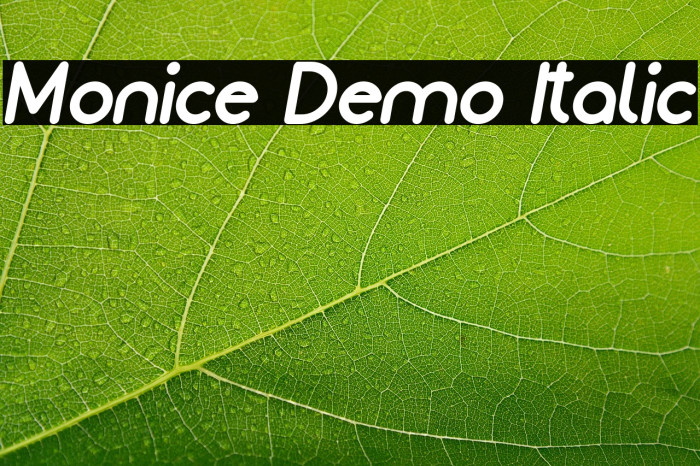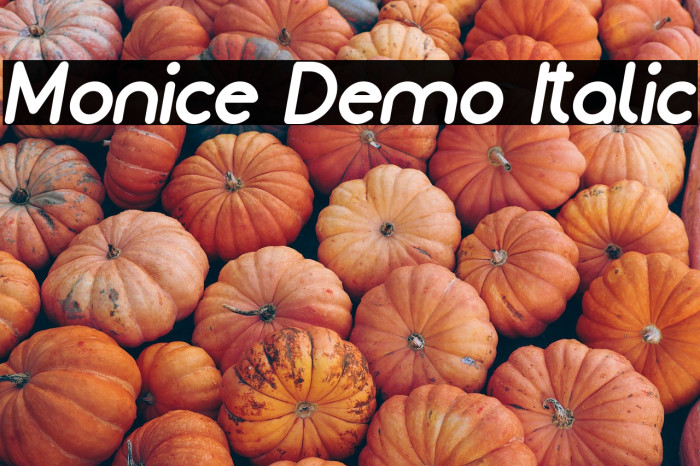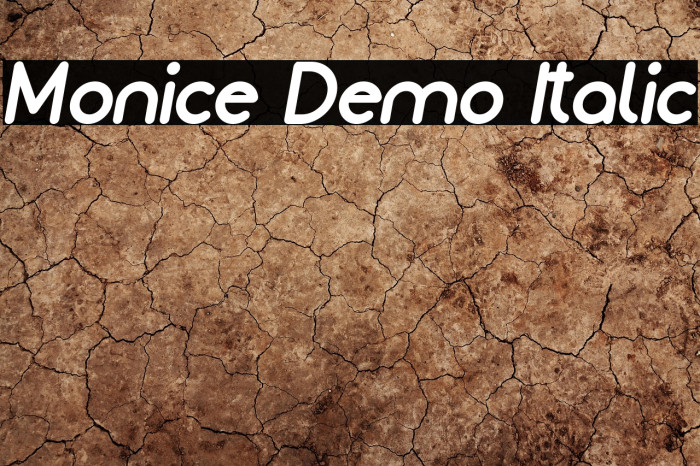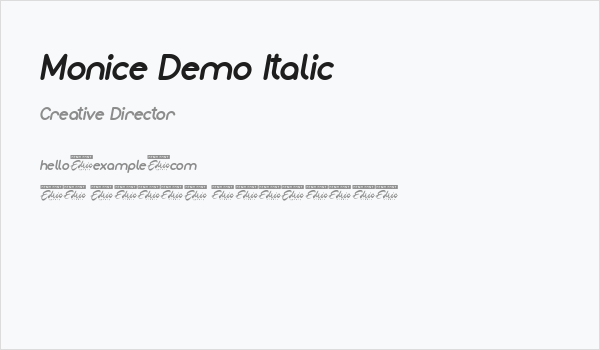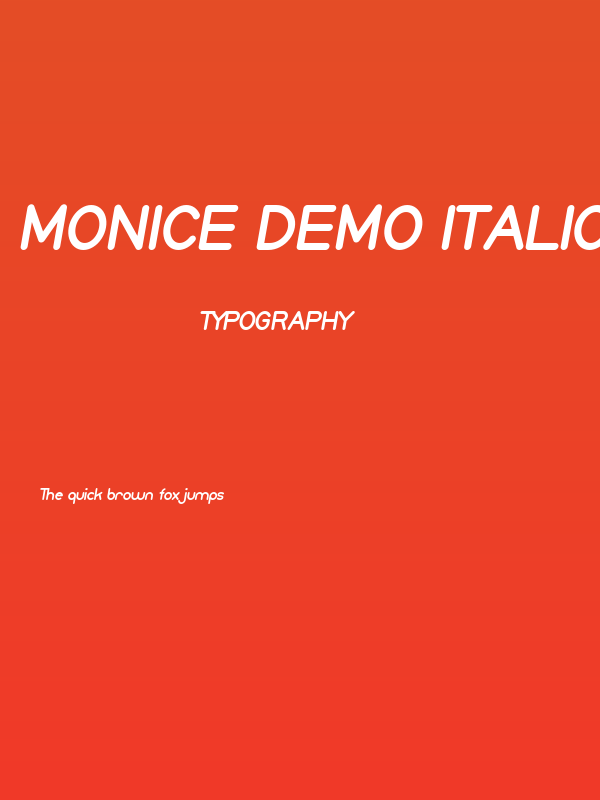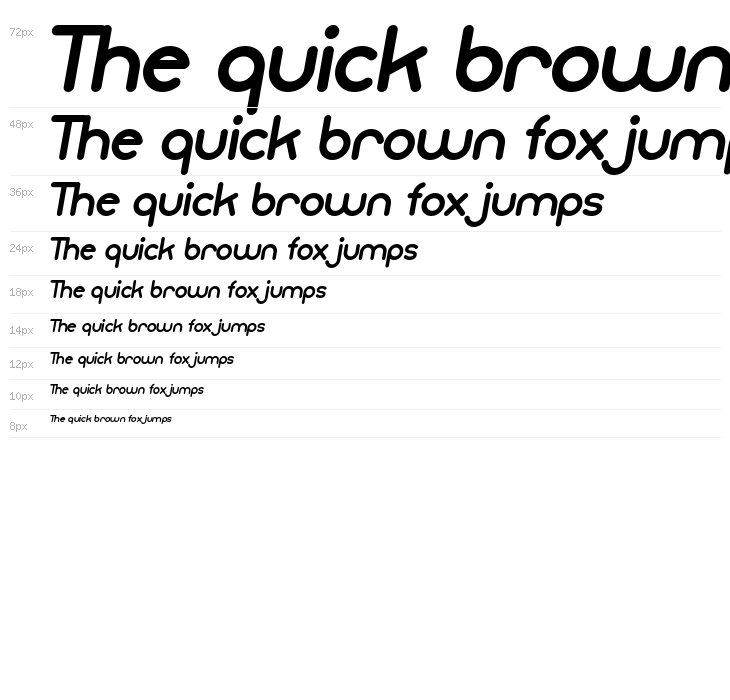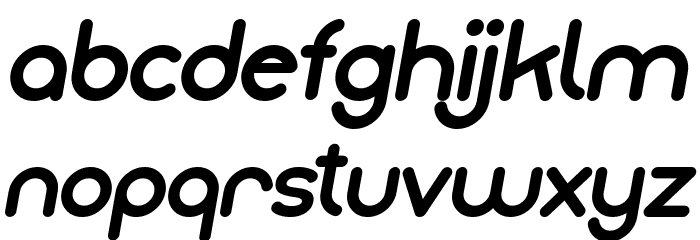
Monice Demo Italic Font
Monice Demo Italic Description
This font features a smooth, flowing style with a modern and playful aesthetic. The characters are slightly italicized, giving them a dynamic and energetic feel. The rounded edges and consistent stroke width contribute to its friendly and approachable appearance. It's designed to be easily readable while maintaining a unique and stylish look, making it suitable for a variety of creative applications. The font includes both uppercase and lowercase letters, numerals, and a selection of special characters, all maintaining the same cohesive style.
| Use Case | Logos, Headlines, Social Media Graphics |
| Proposed Projects | Ideal for branding, advertising, social media graphics, and creative projects that require a friendly and modern touch. |